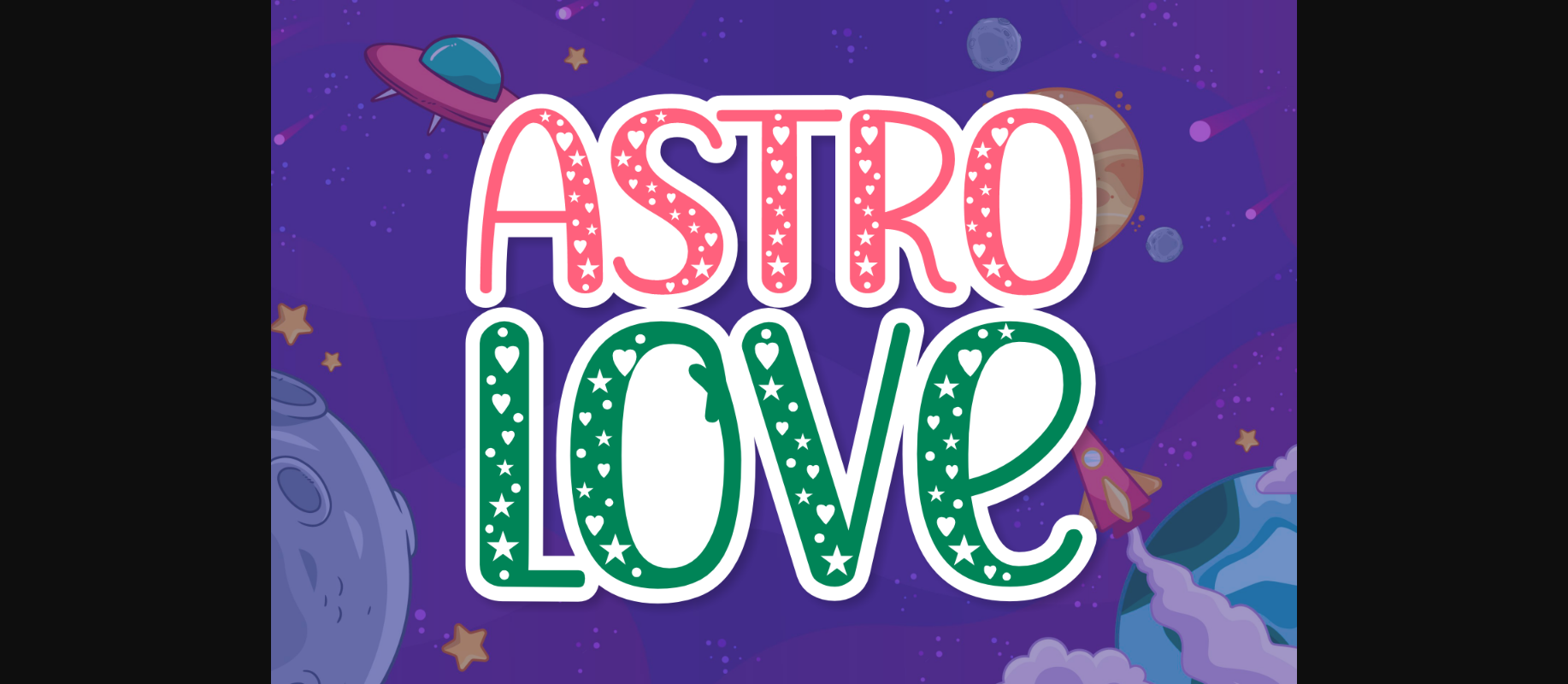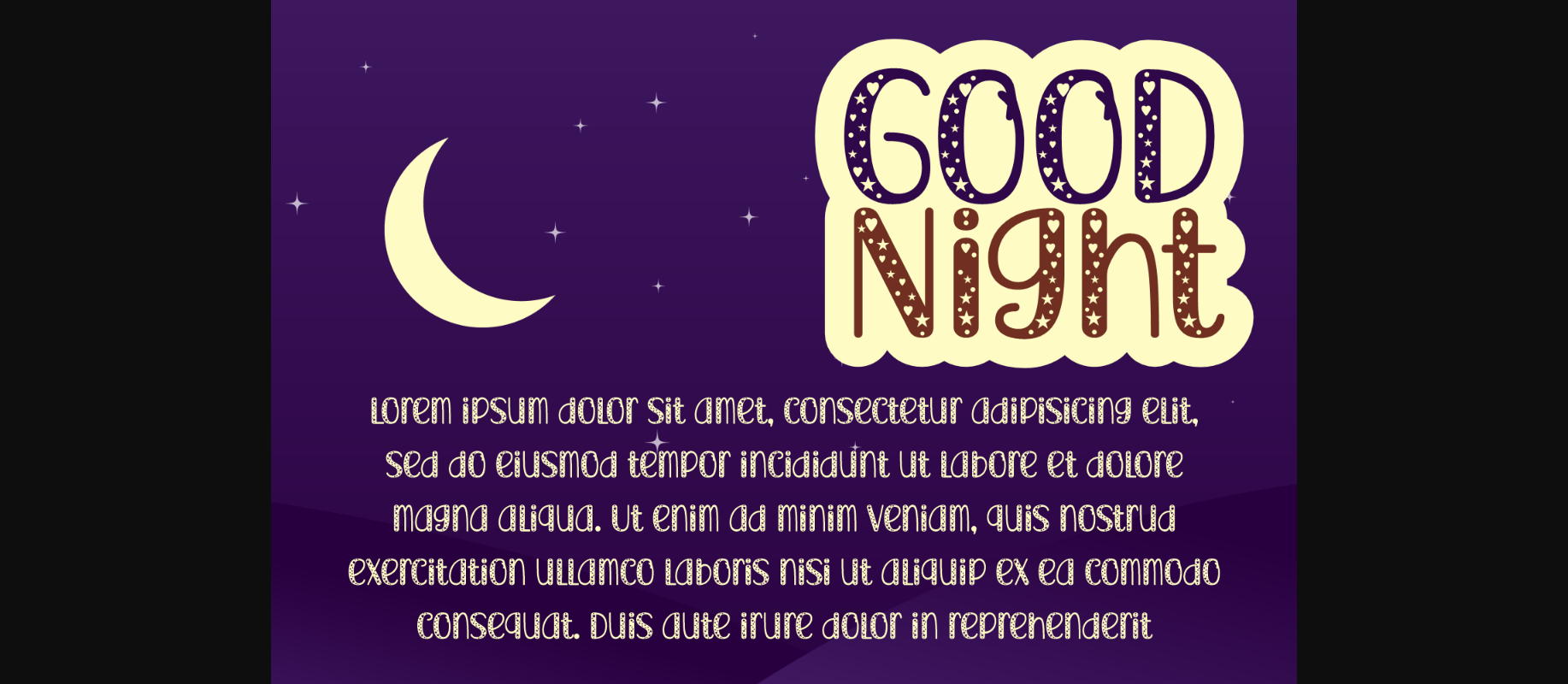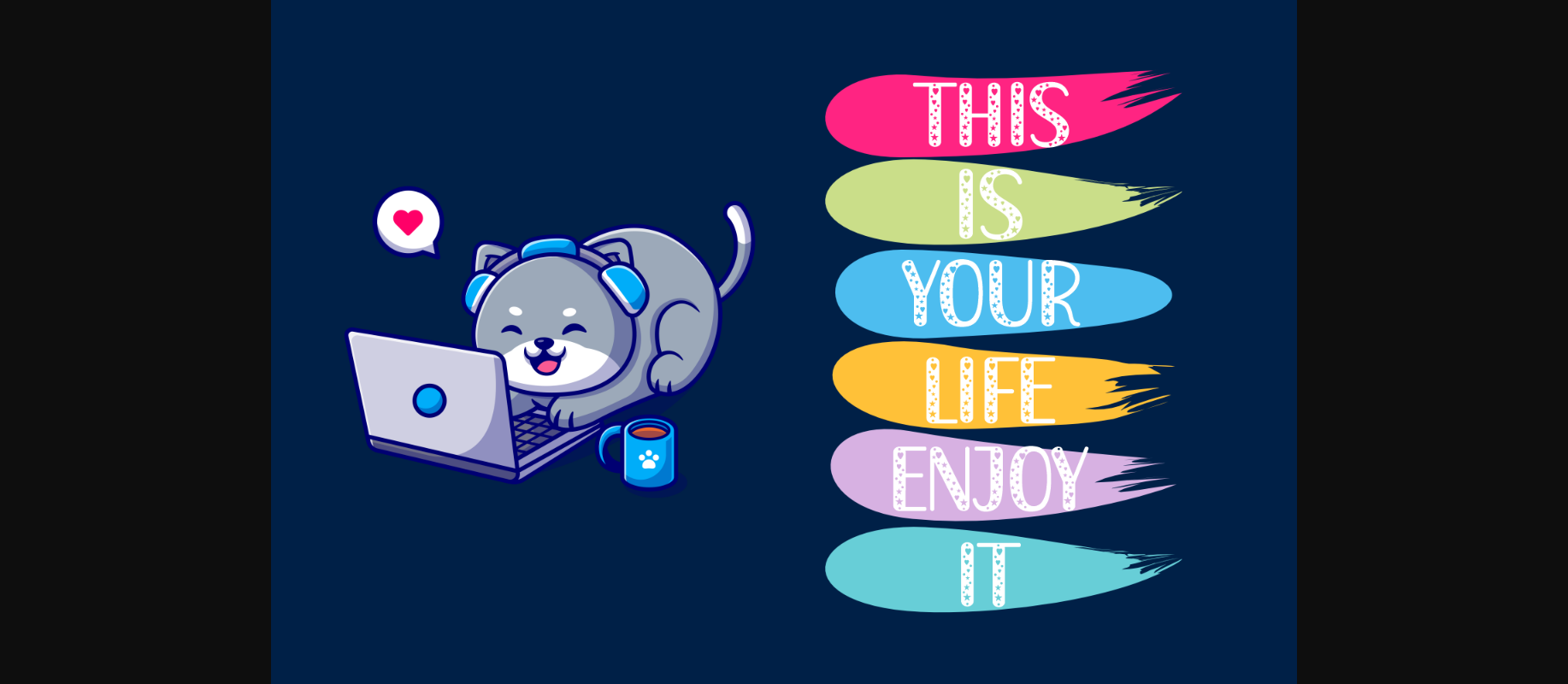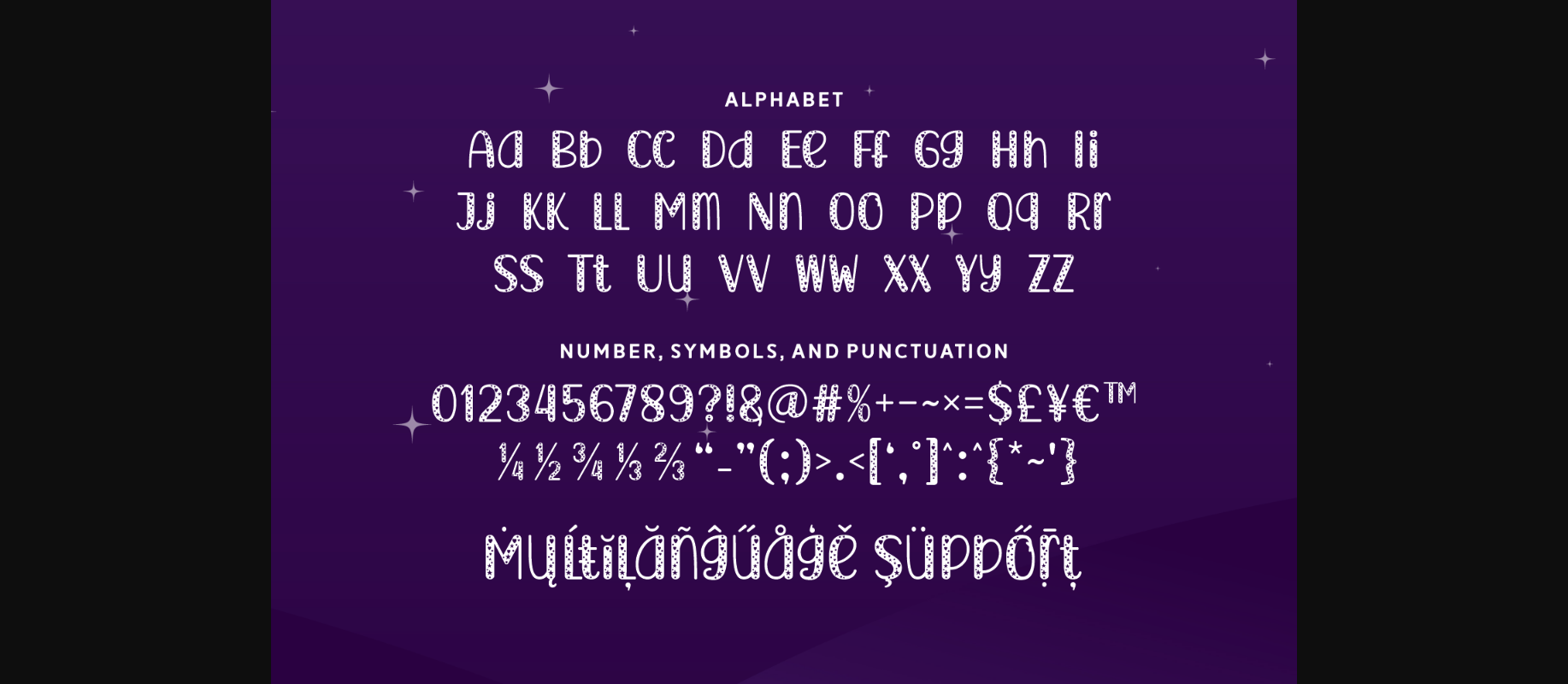
About Astro Love Font
Astro Love is a very out-of-space font. This decorative and playful font features tall characters with a cartoon-inspired look. You can see pretty stars, hearts, and dots inside the font’s characters set. We can see fantastic work with this font as wall art, kids’ room decorations, children’s books, fashion branding, posters, quotes, etc.